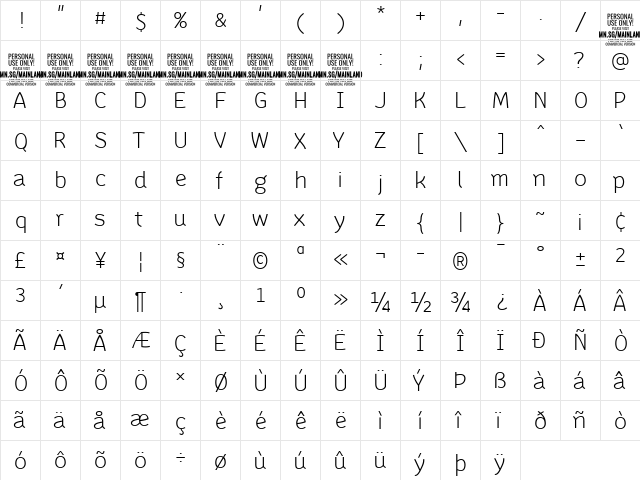
Mainland PERSONAL Light
Design Context for Mainland PERSONAL Typeface
Mainland PERSONAL offers clean, dependable letterforms without strong stylistic allegiance, making it a practical choice for designers who need flexibility. Its slender proportions lend an understated elegance to any composition.